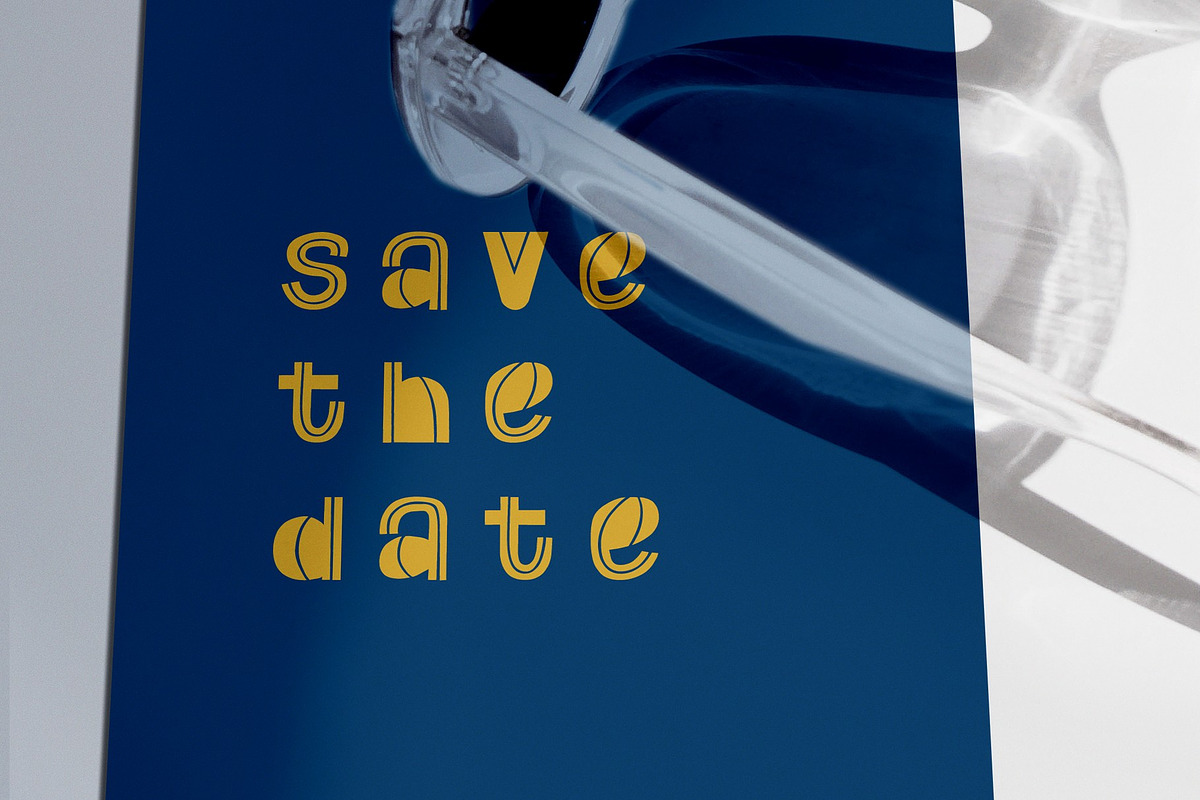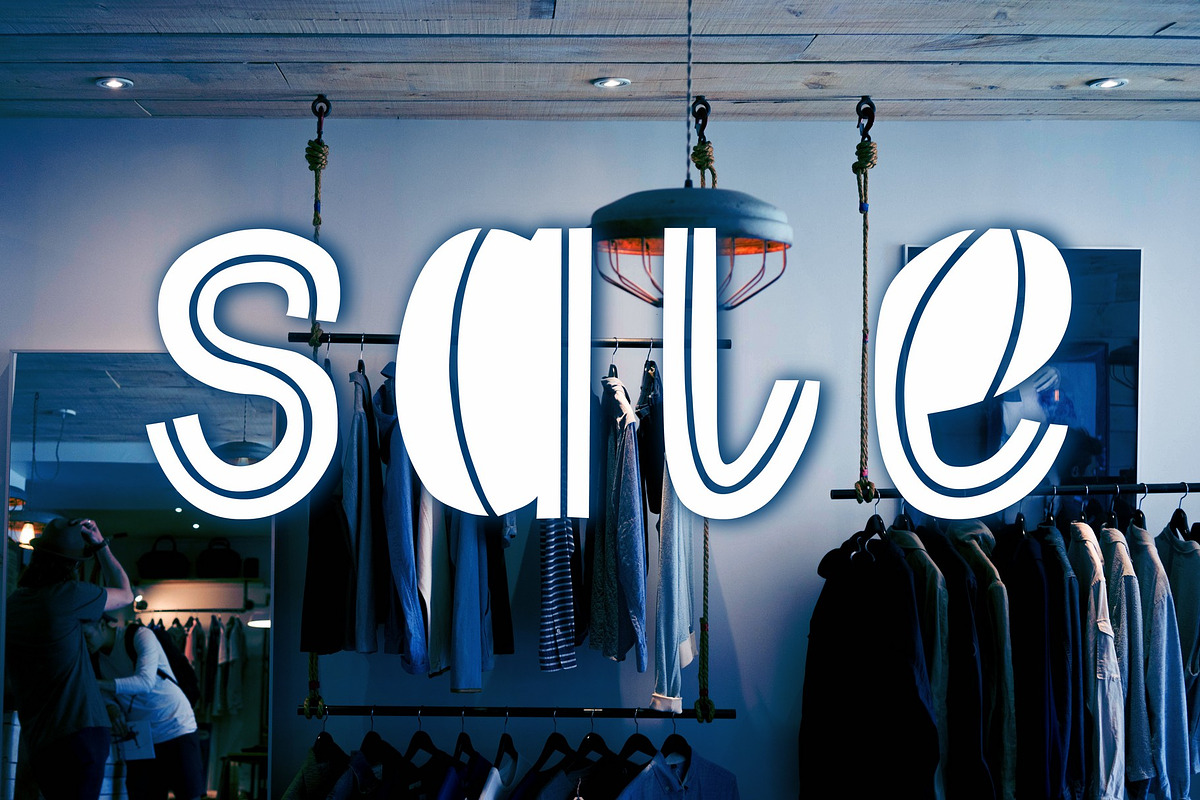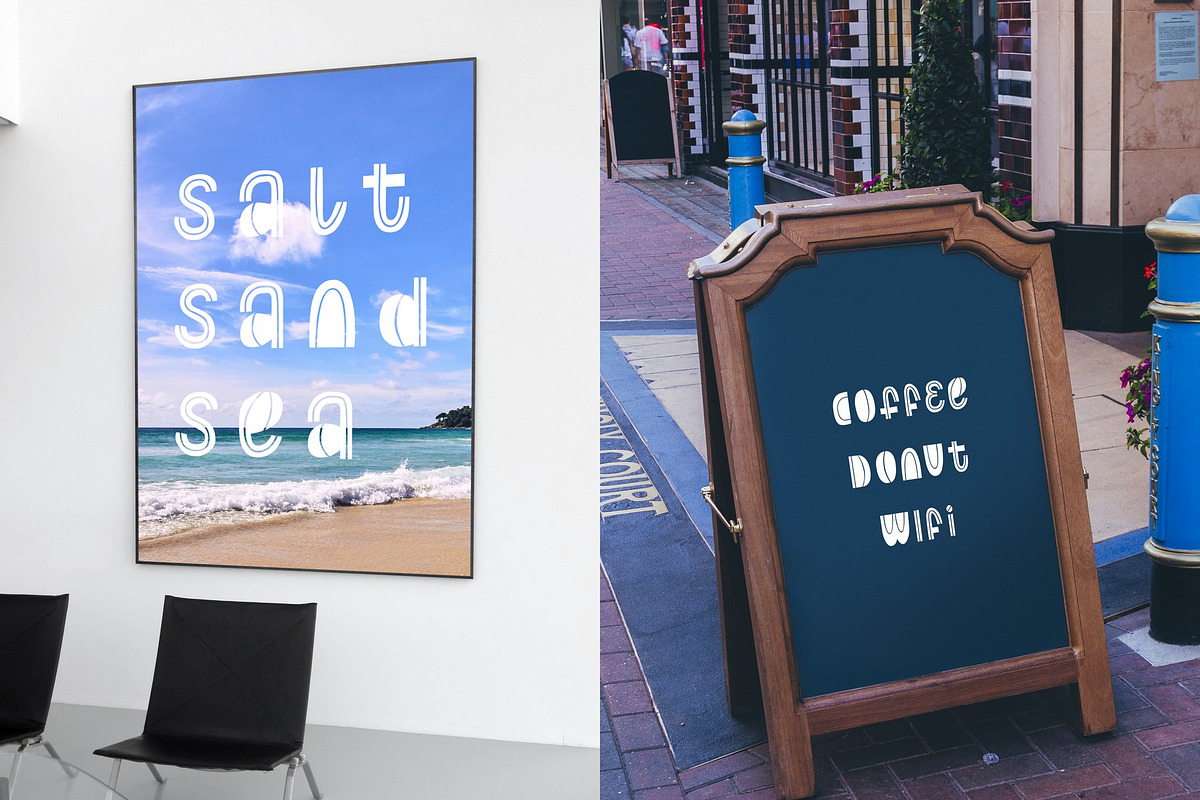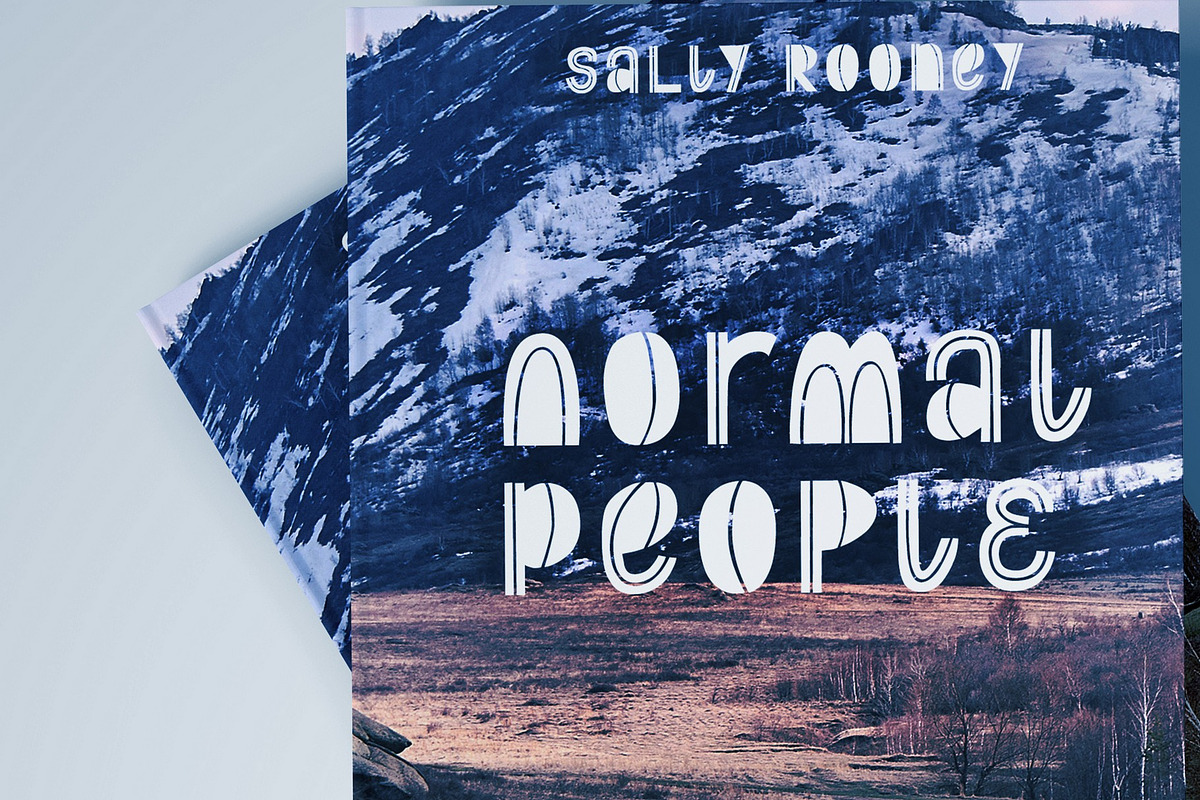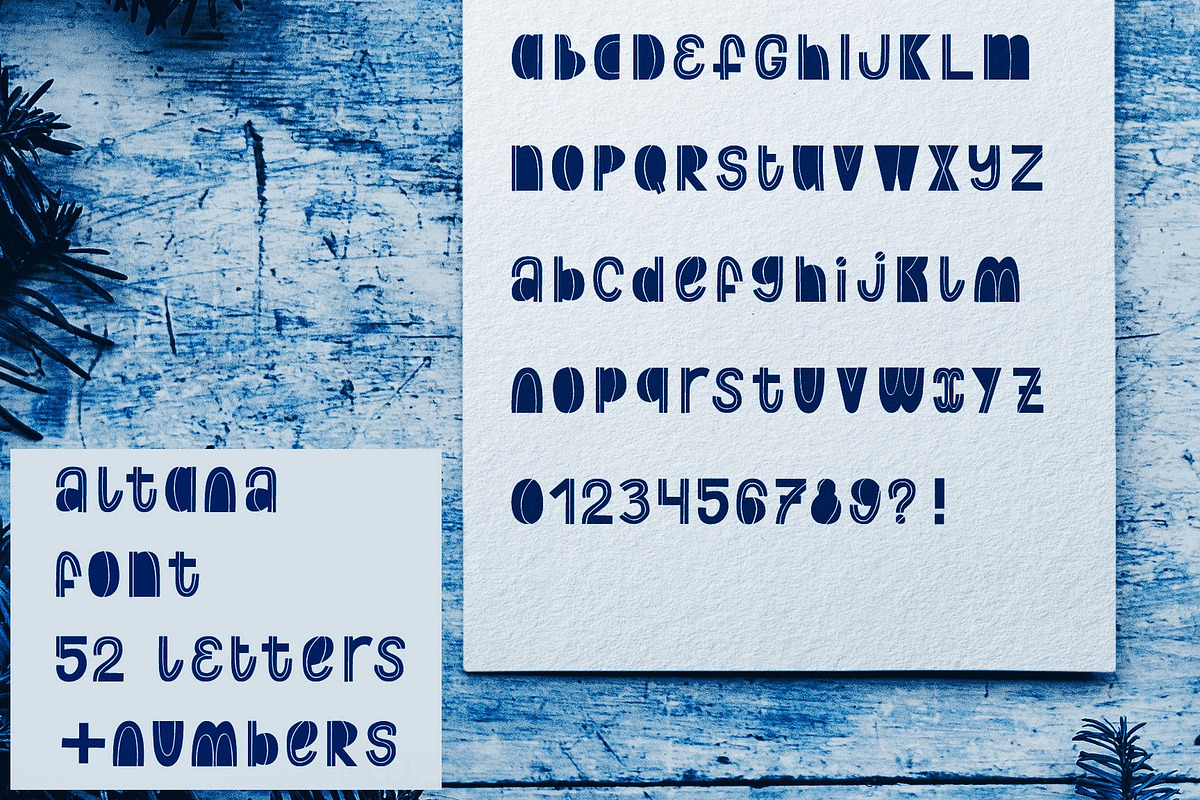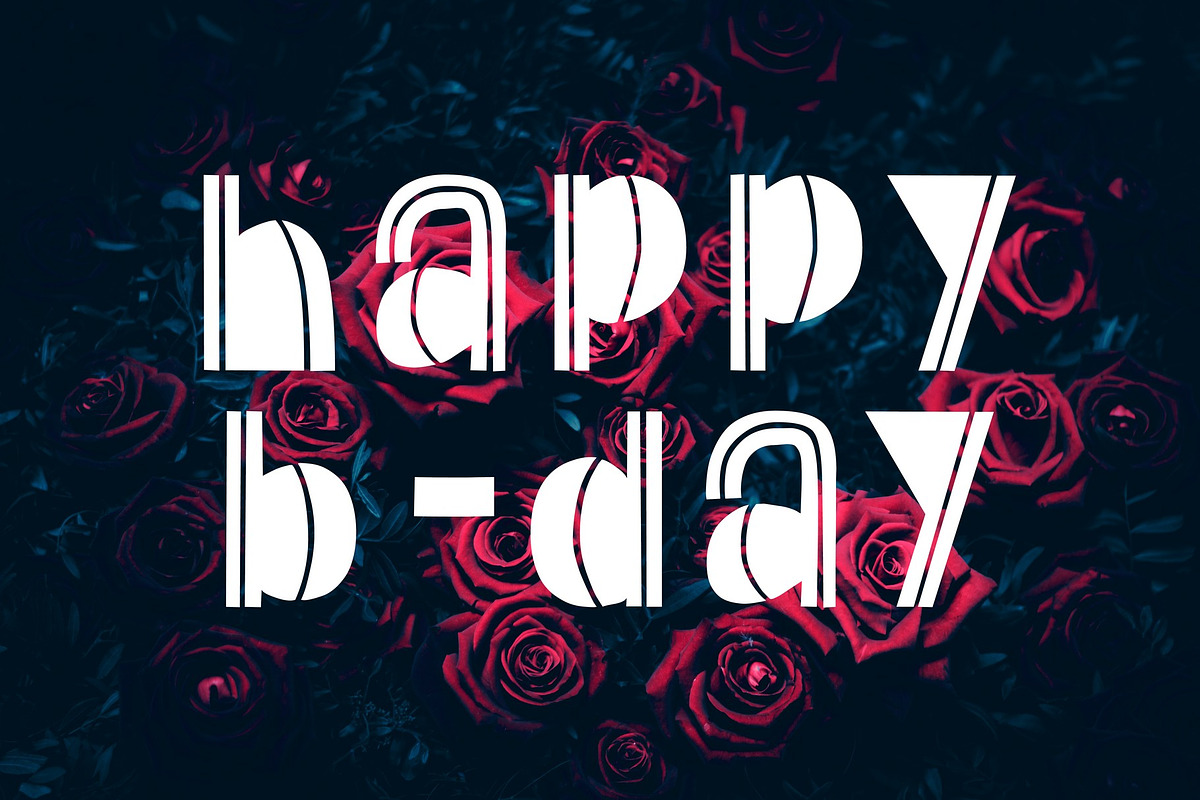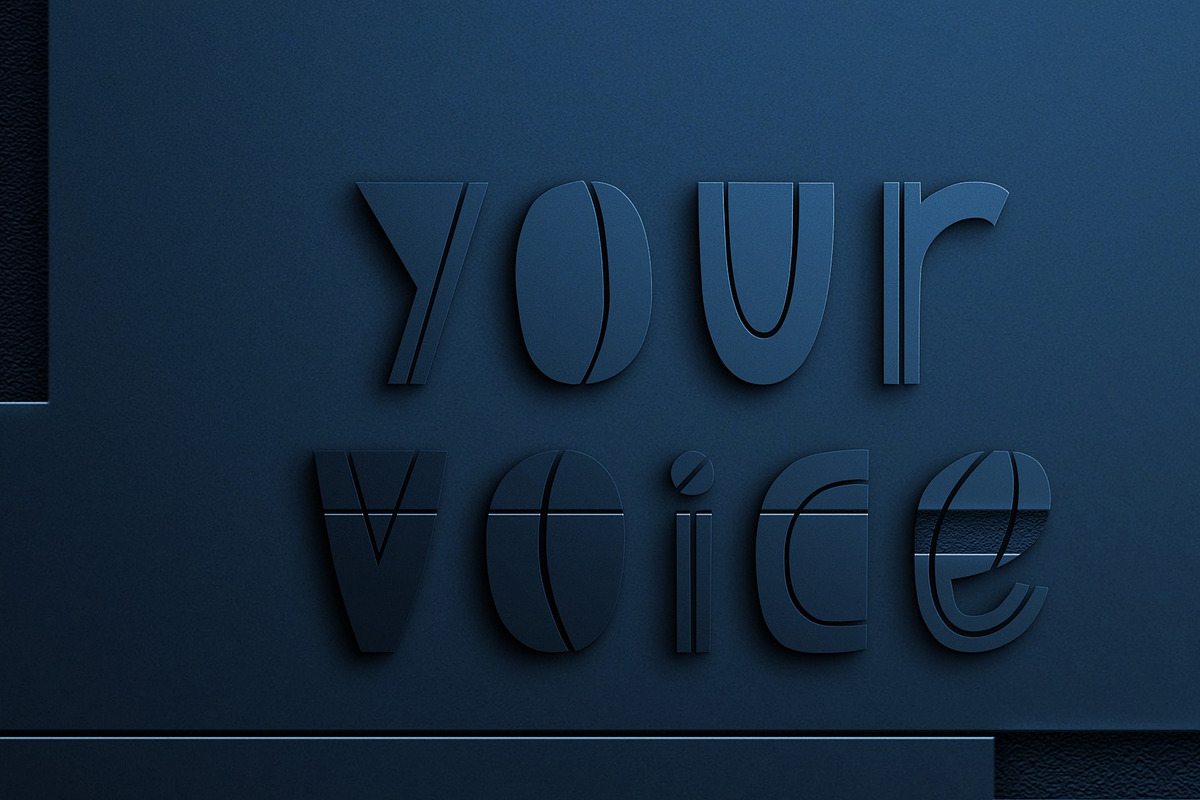
Decorative font. Altana
You can use this letters for
decor (menu, tag, signboard) for cafe, restaurant, rent and other services,
flower cards, maybe something else.
Why Decorative font. Altana is worth a look
Decorative font. Altana by Volf Mockups fits naturally into Branding, posters, packaging, typography.